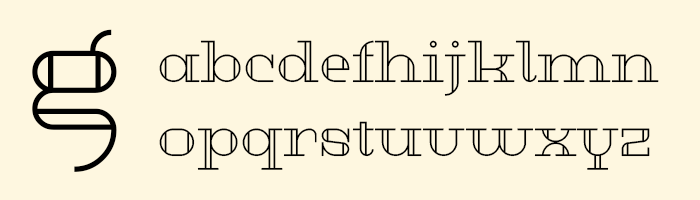
Congratulations! FontStruct Staff have deemed your FontStruction worthy of special mention. “AT Migdalia” is now a Top Pick.
I liked this from the first moment, it's delightfully rounded, light and elegant. I love the Xx, Yy, g and the wonderful 4. Congratulations on the TP :)
Great work! 10/10
Nice!